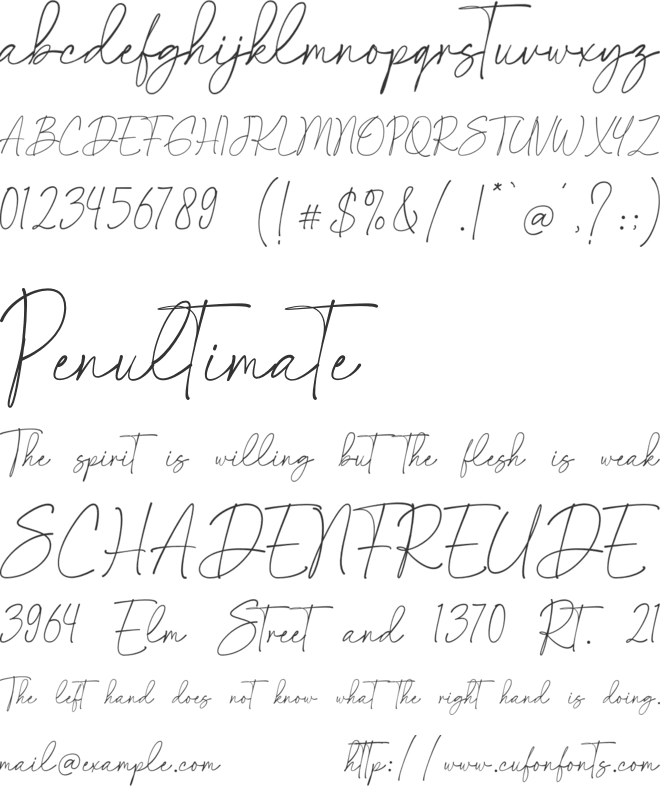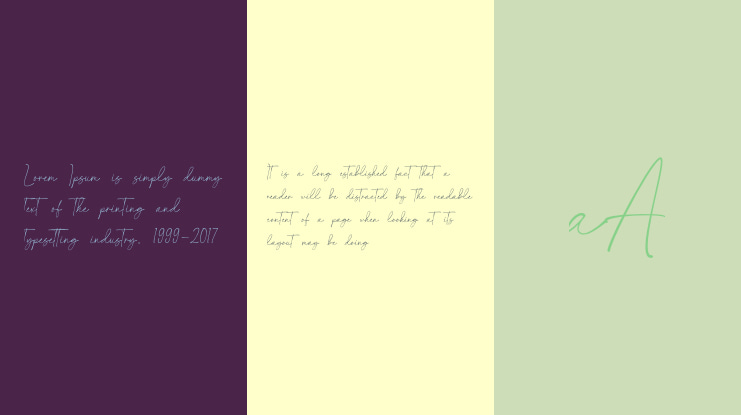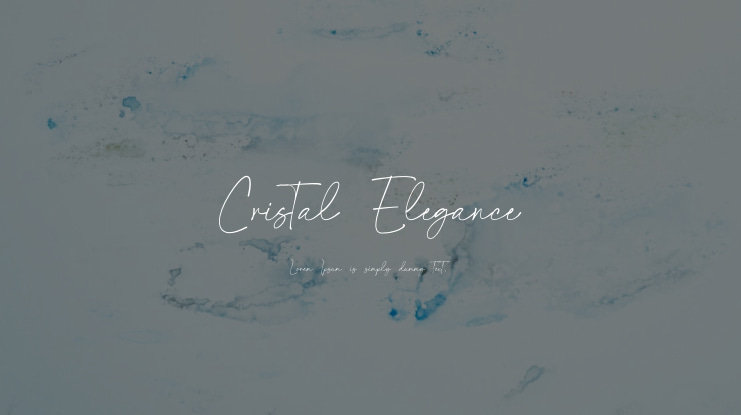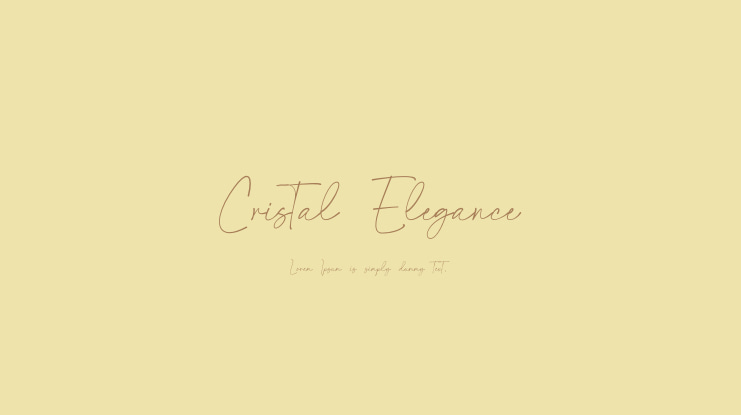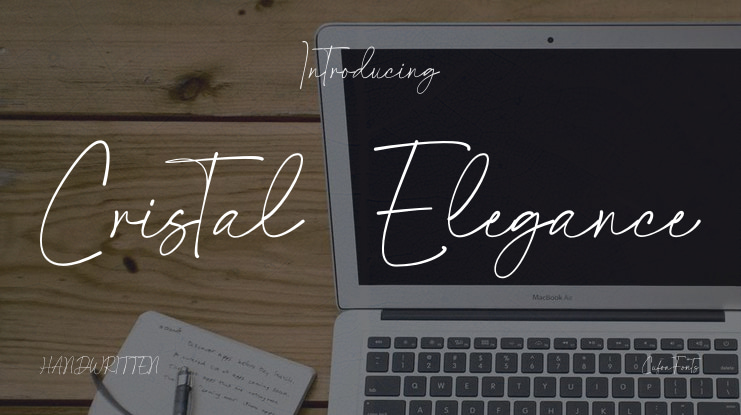
Cristal Elegance Font
Crystal Elegance is a beautifully crafted handwritten font that captures the essence of refined elegance and sophistication. Its flowing, signature-style strokes exude charm and grace.